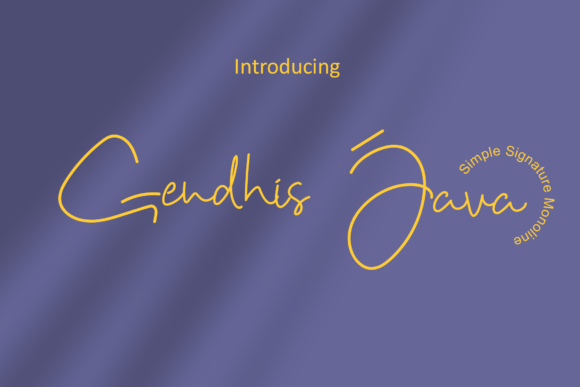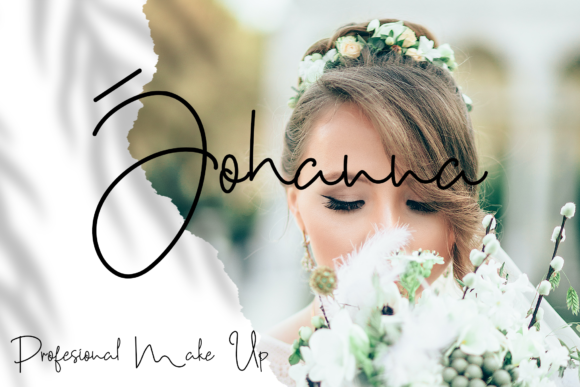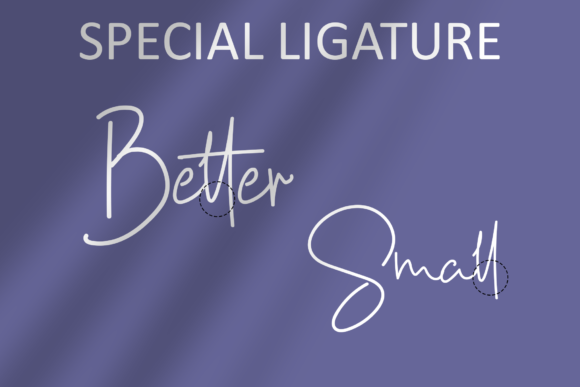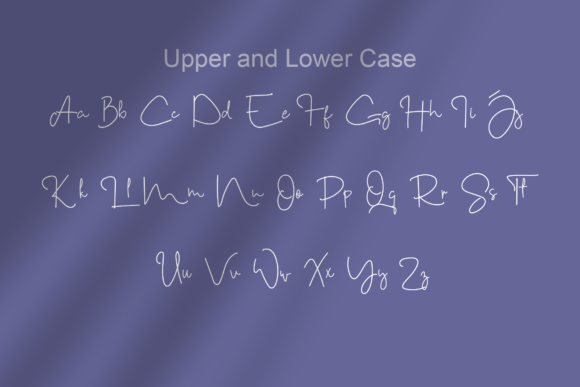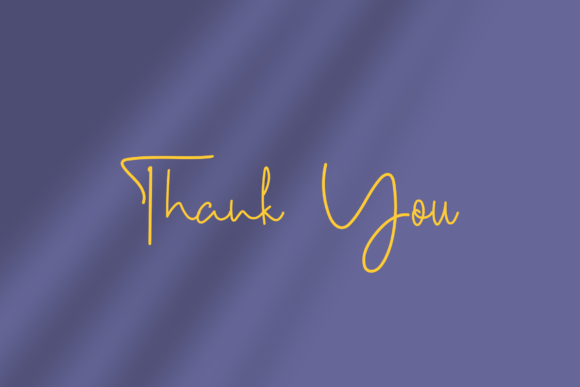
Gendhis Java Font
About Gendhis Java Font
Gendhis Java is a simple and delicate handwritten font. Warm and dainty, this font will turn each of your project ideas into real works of art. Have fun with this beautiful font and explore its endless variations.